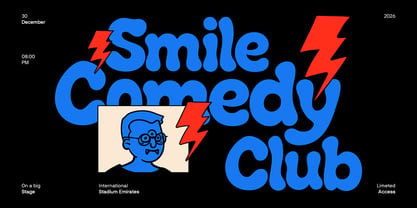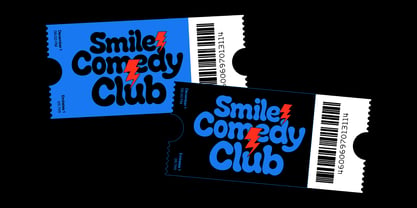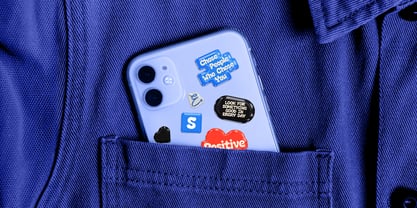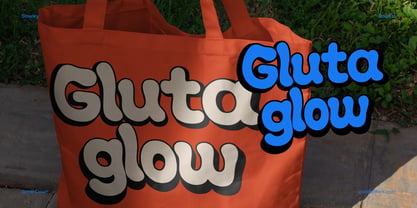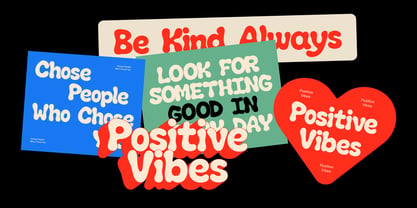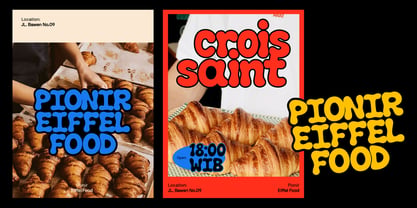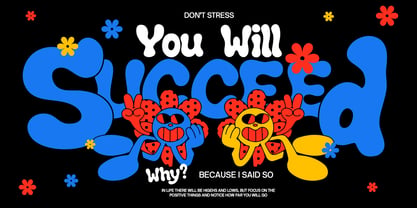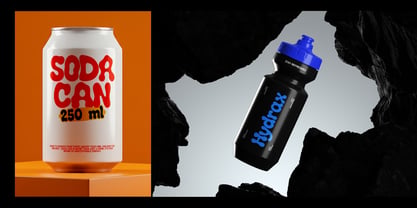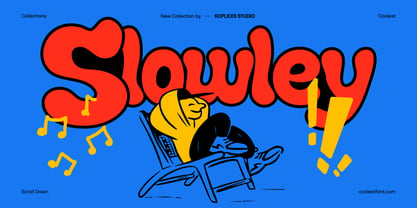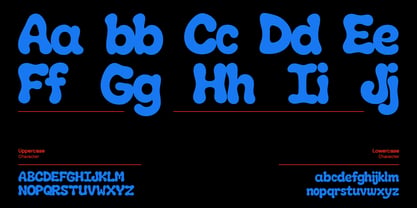
Slowley
by Koplexs Studio
The Slowley Font Family was designed by Ahmad Muslimin and published by Koplexs Studio. Slowley contains 2 styles and family package options. More about this family
About Slowley Font
Slowley Font is a playful and bold display font inspired by retro bubble lettering and vintage pop typography. Designed with chunky rounded characters and smooth curves, this expressive bubble font creates a fun, energetic, and eye-catching visual style perfect for standout typography.
The font combines nostalgic retro aesthetics with modern creative trends, making it suitable for branding, posters, packaging, merchandise, and social media graphics. Its thick letterforms and cheerful personality help designs feel more friendly, vibrant, and memorable.
Slowley Font includes both Regular and Italic styles, allowing designers to create dynamic headline combinations and more expressive layouts. The Regular style offers a clean and stable appearance, while the Italic style adds movement and playful retro energy.
Recommended Uses
Slowley Font works perfectly for:
• Logo Design
• Branding Projects
• Poster Design
• Packaging & Labels
• Merchandise & Apparel
• Social Media Graphics
• YouTube Thumbnails
• Kids Designs
• Café Branding
• Creative Headlines
If you are looking for a bold display font with cheerful retro personality and playful bubble shapes, Slowley Font is a perfect choice. This unique retro font is designed to make headlines, logos, and branding projects stand out with strong visual impact and fun typography energy.
Designers: Ahmad Muslimin
Foundry: Koplexs Studio